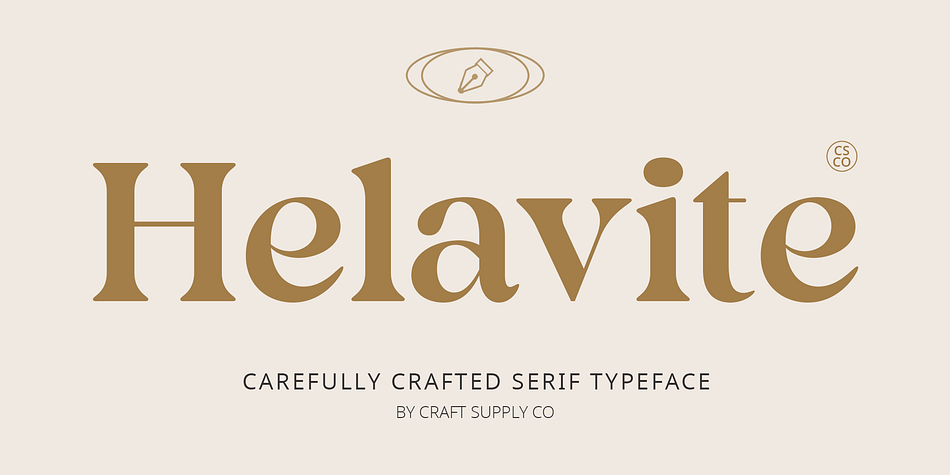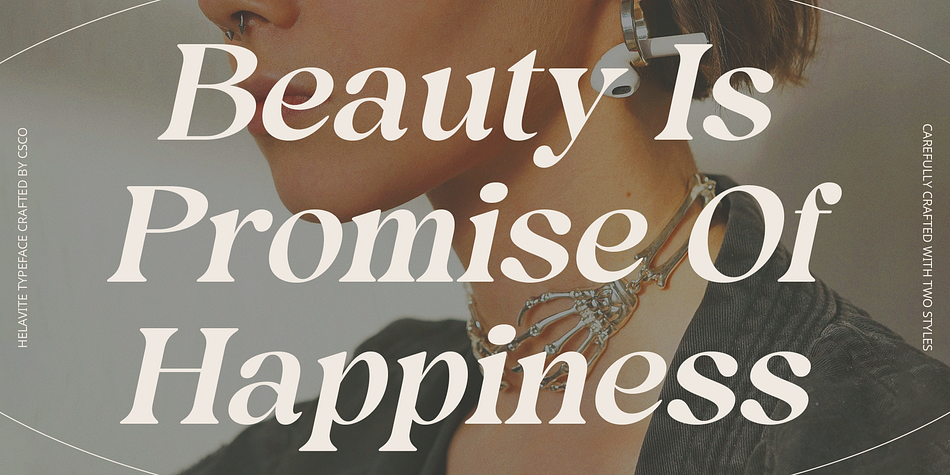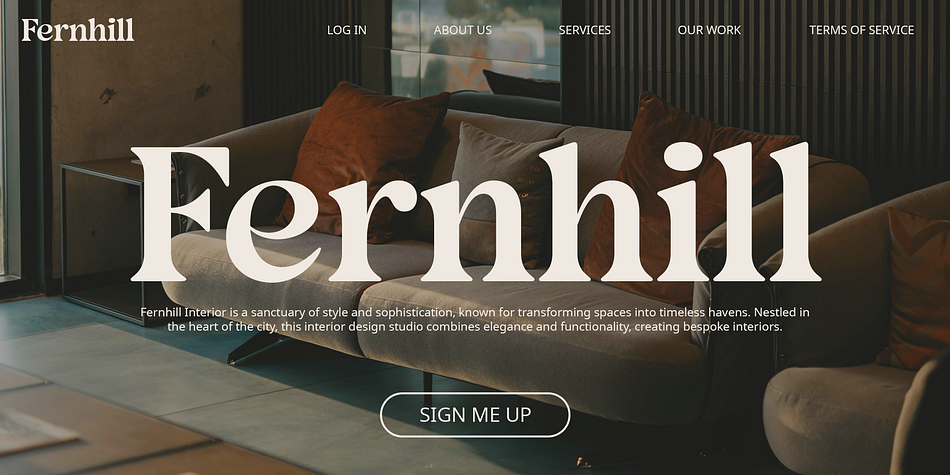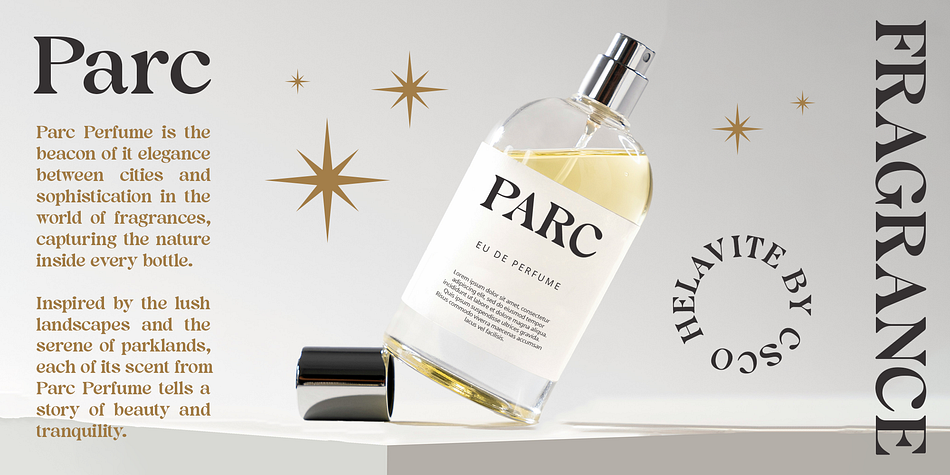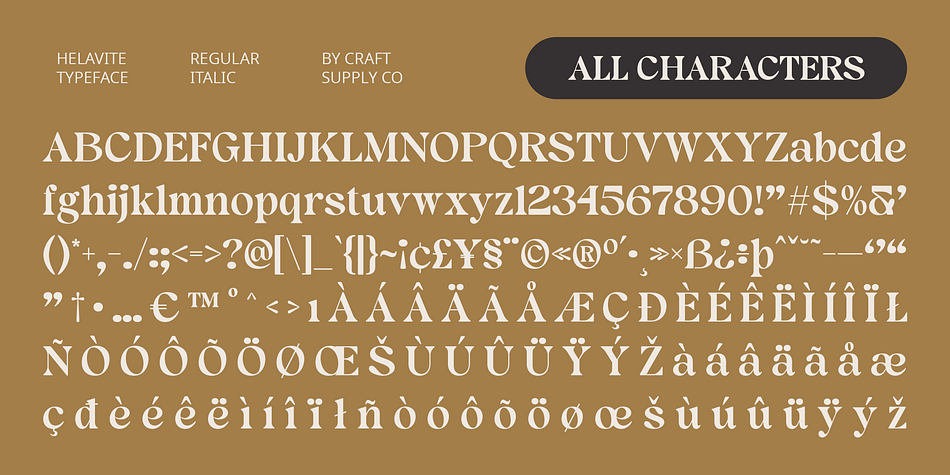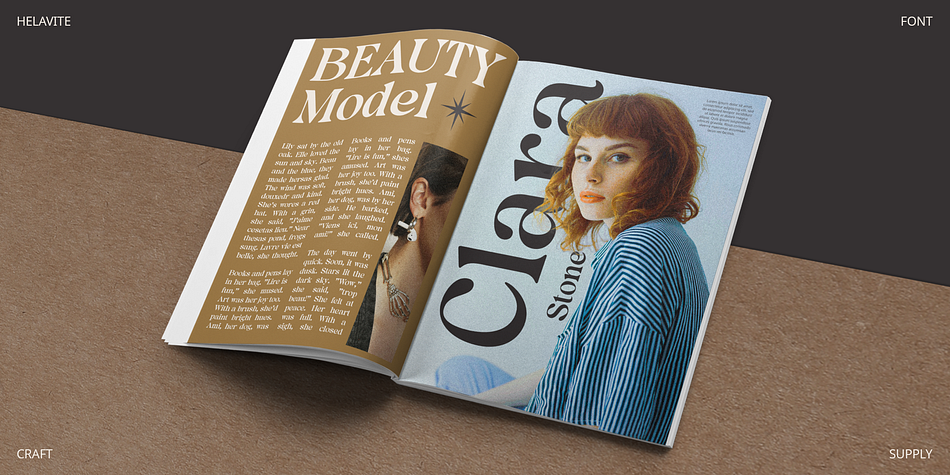
Helavite
Helavite is a serif font family. This typeface has two styles and was published by Craft Supply Co.
Helavite – Modern Serif: Where Modernity Meets Elegance
Sleek and Elegant Serif Design
Helavite – Modern Serif is a sleek and elegant font designed for the modern world. Its serif design adds a touch of sophistication, making it suitable for a wide range of professional applications.
Versatile and Professional
With its versatile design, Helavite Font is perfect for a variety of uses, including headlines, body text, and branding. Its modern style adds a contemporary flair to any project, while its serif details ensure a classic and timeless look.
Enhanced Readability
Helavite Font prioritizes readability, ensuring that your message is clear and easy to understand. Whether used in print or digital media, this font maintains legibility even at small sizes.